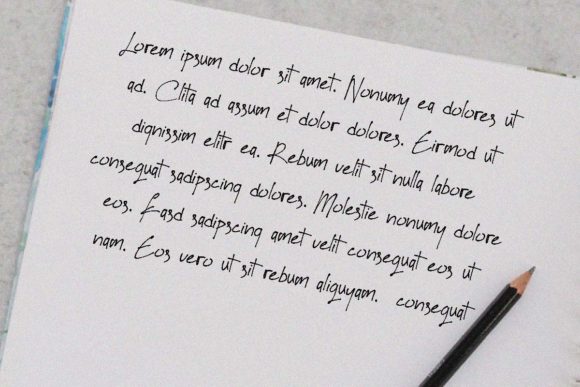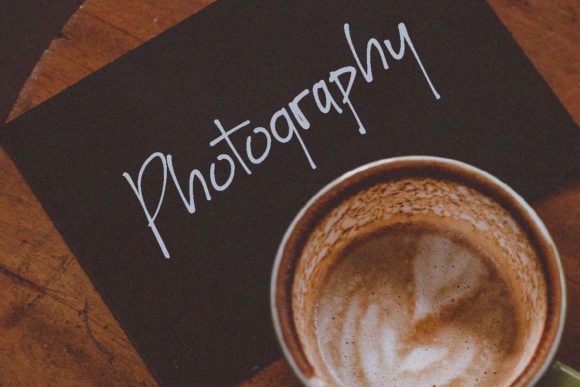
Bolpoint Note Font
db-ku.com - Script & Handwritten -- Bolpoint Note is a neat and simple handwritten font. Whether you’re looking for fonts for Instagram or calligraphy scripts for DIY projects, this font will turn any creative idea into a true piece of art!